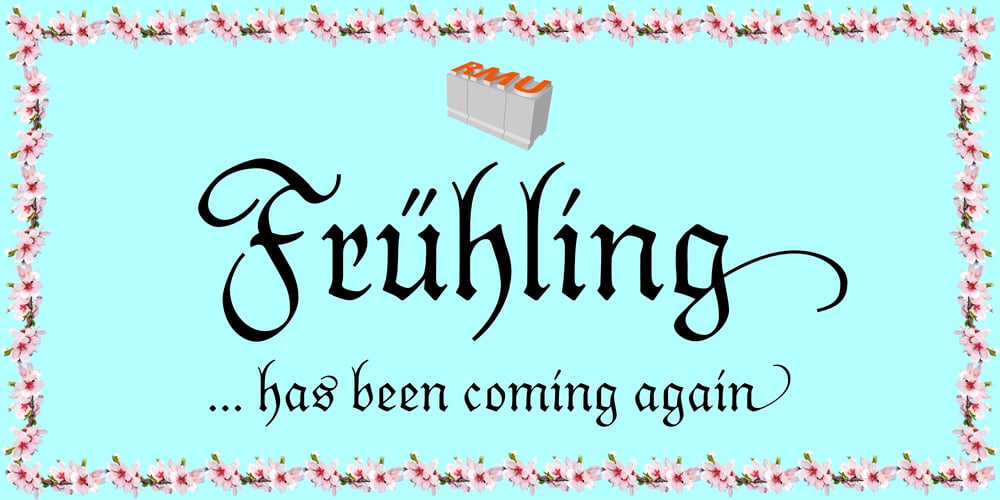
Fruehling Font Family was designed by Rudolf Koch, Ralph M. Unger and published by RMU. Fruehling contains 1 styles and family package options. Fruehling, first released by the Klingspor Brothers foundry in 1914, is a rather calligraphic blackletter font designed by Rudolf Koch. This font was completely redrawn and redesigned for contemporary usage. The font comes with old-style figures, and the letters d, e, g, n, and t have swash variants.It is recommended to use also the OT feature Discretionary Ligatures.